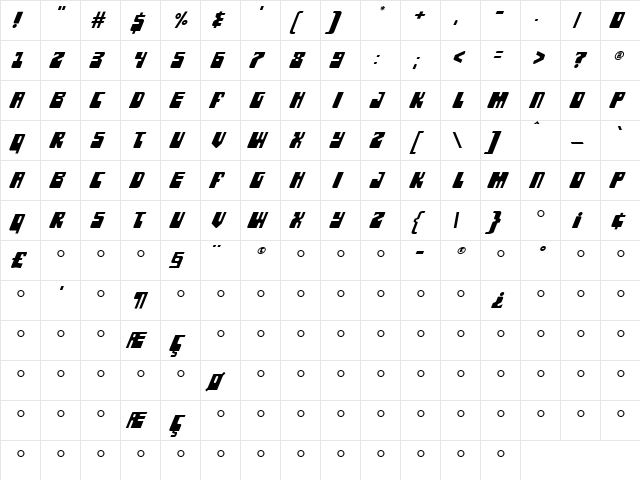
Powerhouse Medium
Design Context for Powerhouse Typeface
Powerhouse has the bold swagger of sports branding: strong, assertive letterforms designed to dominate headlines and jerseys alike.
Built for sports team identities, athletic apparel, event posters, and high-energy promotional material.
Pro Tip: Powerhouse thrives on contrast — try it large, bold, and tight against a clean background for maximum visual impact.